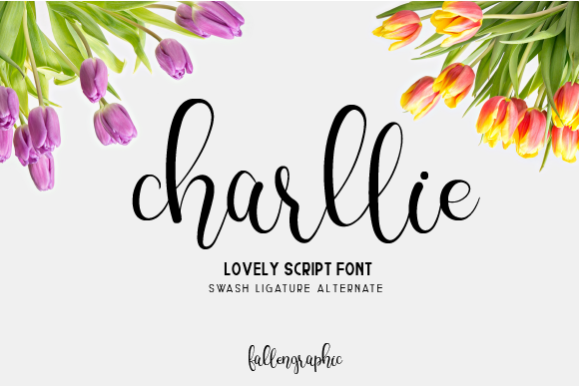
The Perfect Touch of Elegance: Unlocking the Power of Charllie Script Font
Do you ever find yourself scrolling through Pinterest boards, mesmerized by the beautiful typography and elegant designs that seem to leap off the screen? That’s exactly what happened to me the other day, and it got me thinking about the key to creating those show-stopping looks: the perfect font. For me, it was the Charllie Script Font that caught my eye, with its flowing, handwritten lines that exude sophistication and refinement.
This stunning font is more than just a pretty face – it’s a valuable tool for designers looking to add a touch of elegance to their upscale and chic designs. Whether you’re working on a wedding invitation, a luxury brand’s marketing materials, or even a personal blog, the Charllie Script Font is sure to make your project stand out from the crowd.
Key Features of Charlie Script Font
- Font Family: Charlie Script
- Unique Characteristics: Whimsical, handwritten feel with a touch of elegance and sophistication, perfect for creative and artistic projects
Review of Charllie Script Font
Charllie Script Font is a beautiful script font that can elevate any design. It works well for various design projects, such as branding, advertising, and editorial content. ✨ The font is highly customizable, making it suitable for a wide range of design styles. ✨ Its high legibility and smooth flow of letters make it perfect for large blocks of text. ✨ The font also comes in various weights, which adds to its versatility. ✨
However, there are some limitations to this font. ⚠️ The font may not be ideal for formal or professional settings due to its informal and playful nature. ⚠️ It may also not be the best choice for small font sizes, as the letters can become too thin and hard to read. ⚠️
What I Like:
- High legibility
- Smooth flow of letters
- Comes in various weights
What I Don’t Like:
- May not be suitable for formal or professional settings
- May not be ideal for small font sizes
Overall, Charllie Script Font is a great choice for designers who want to add a touch of personality to their designs. It’s perfect for creative projects and can help to convey a sense of warmth and approachability. However, it may not be the best choice for every design project, and designers should carefully consider the font’s limitations before using it.
Tips for Getting the Most Out of Charllie Script Font
Here are some tips to help you get the most out of Charllie Script Font:
- Use it for titles, headings, and quotes to add a touch of elegance to your designs.
- Pair it with other fonts to create a visually appealing typography.
Charllie Script Font is perfect for:
- Birth
Alternatives to Charllie Script Font
Great Vibes Font is a beautiful, elegant script font suitable for wedding invitations, branding, and any other project that requires a touch of sophistication. It’s more delicate and refined compared to Charllie Script Font, making it ideal for high-end designs.
Dancing Script Font is a fun, playful script font perfect for creative projects like advertisements, magazines, and social media graphics. It’s bolder and more expressive than Charllie Script Font, making it ideal for capturing attention and adding a touch of whimsy.
Lobster Font is a vintage, distressed script font ideal for retro-themed projects like posters, flyers, and menus. It’s more rugged and worn compared to Charllie Script Font, making it perfect for adding a touch of nostalgia and character to designs.
Carolyna Pro Font is a modern, elegant script font suitable for high-end branding, packaging, and editorial designs. It’s more refined and sophisticated compared to Charllie Script Font, making it ideal for creating a premium and polished look.